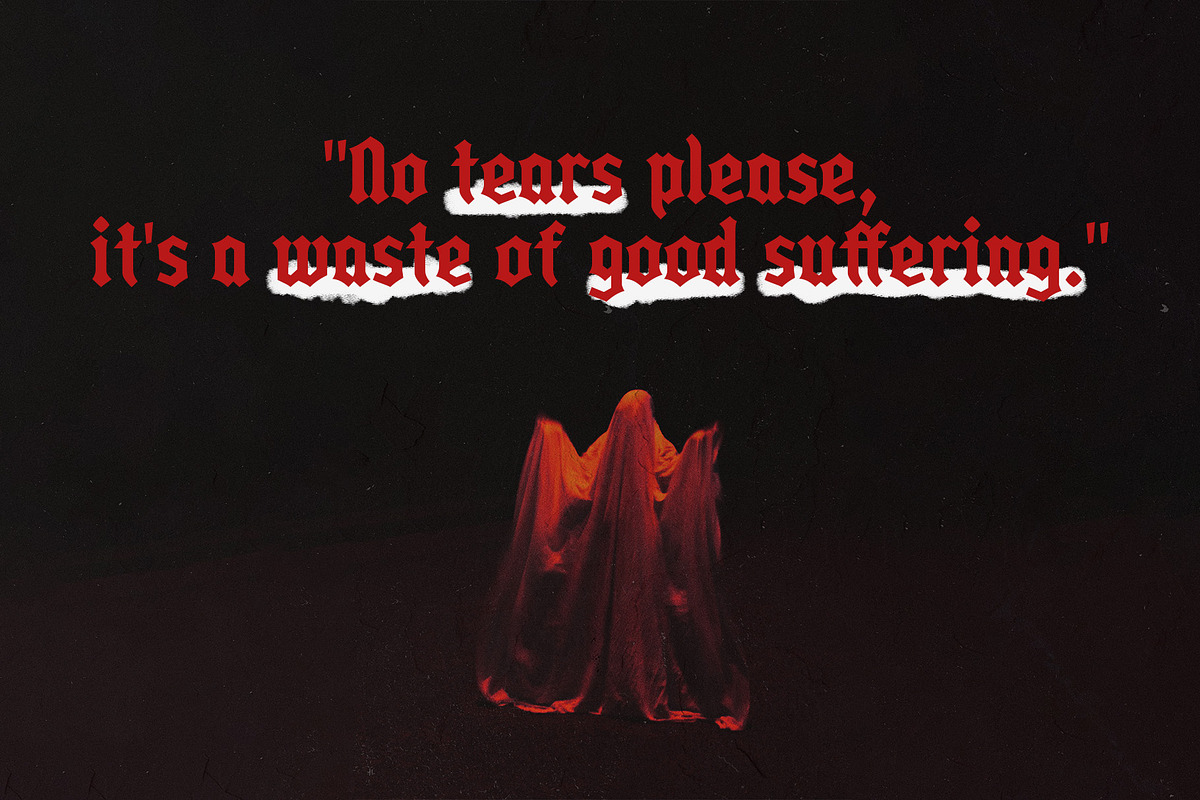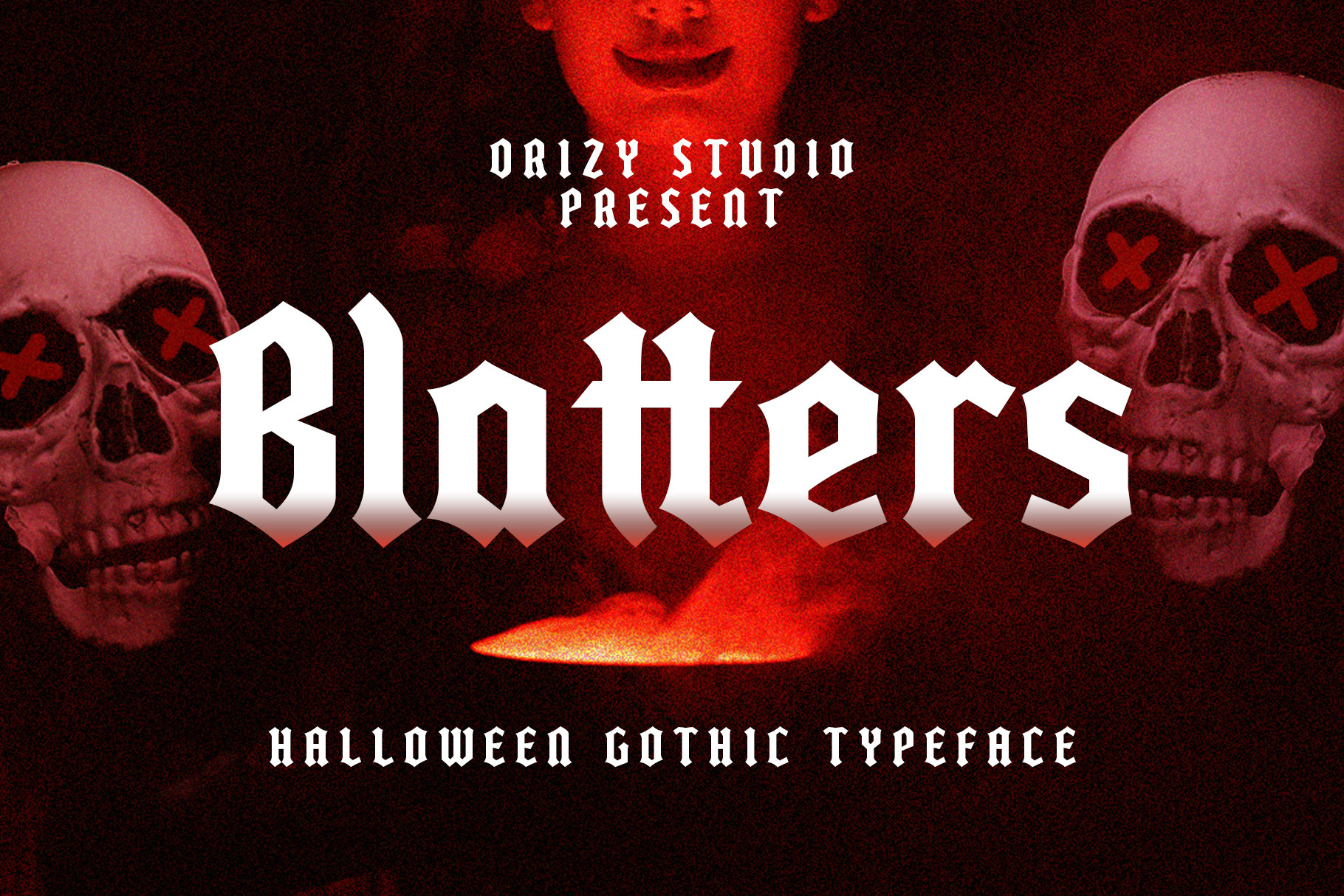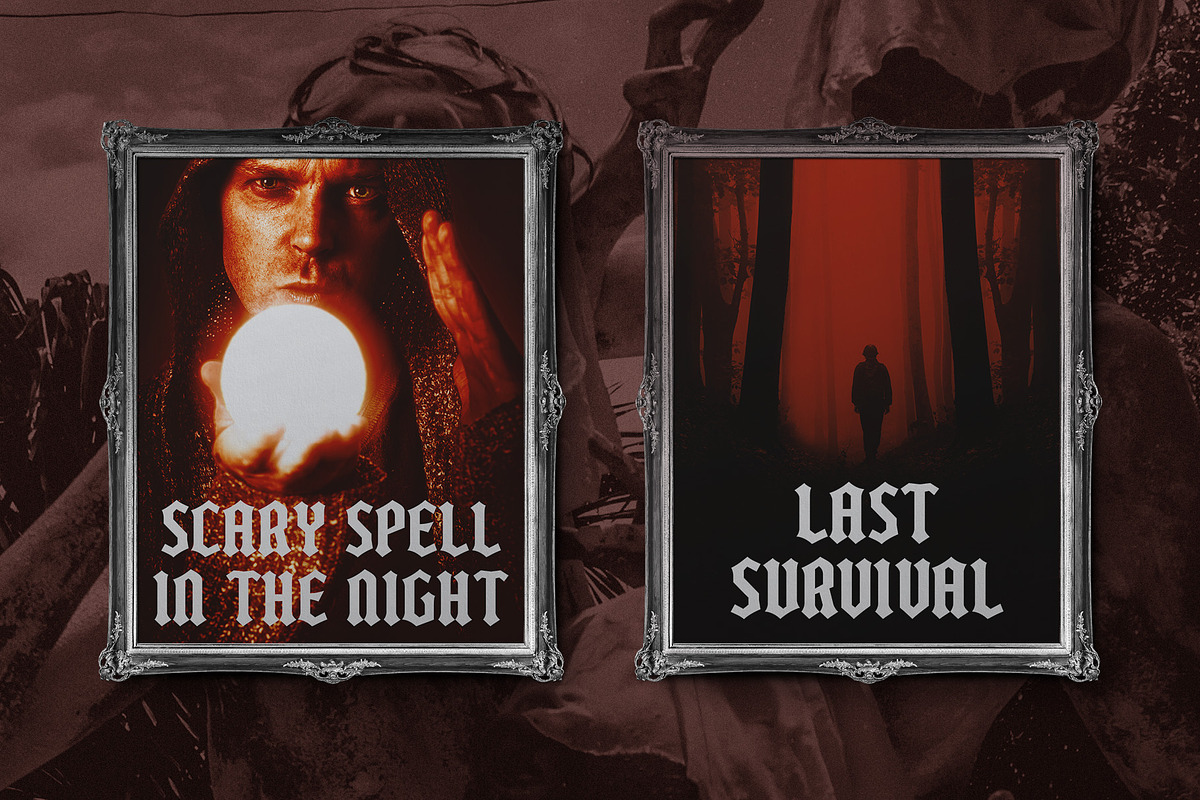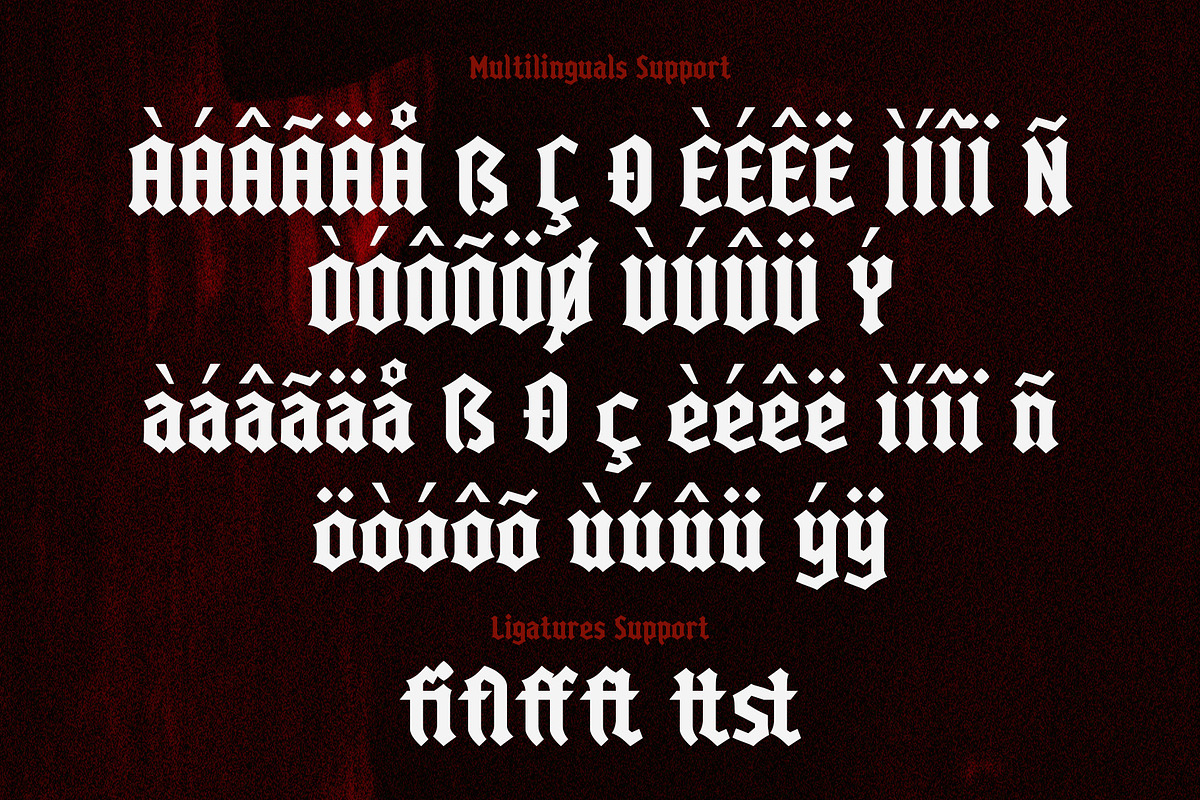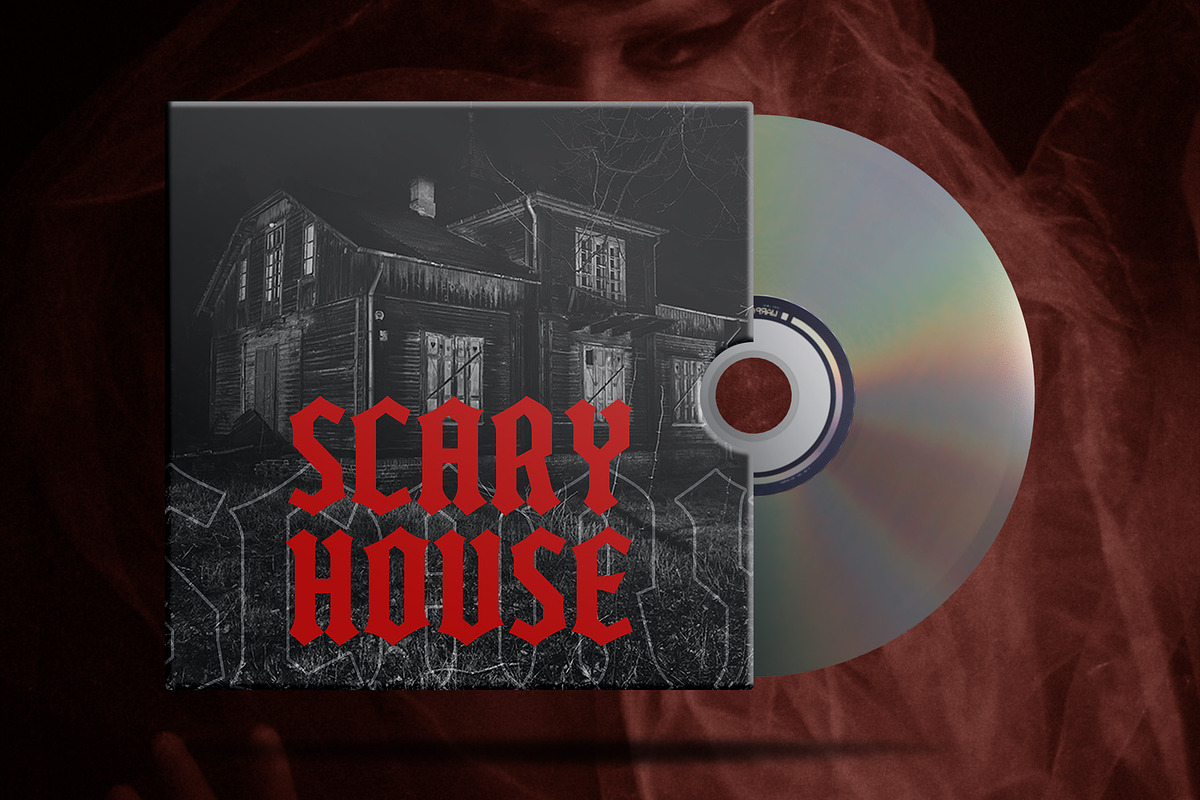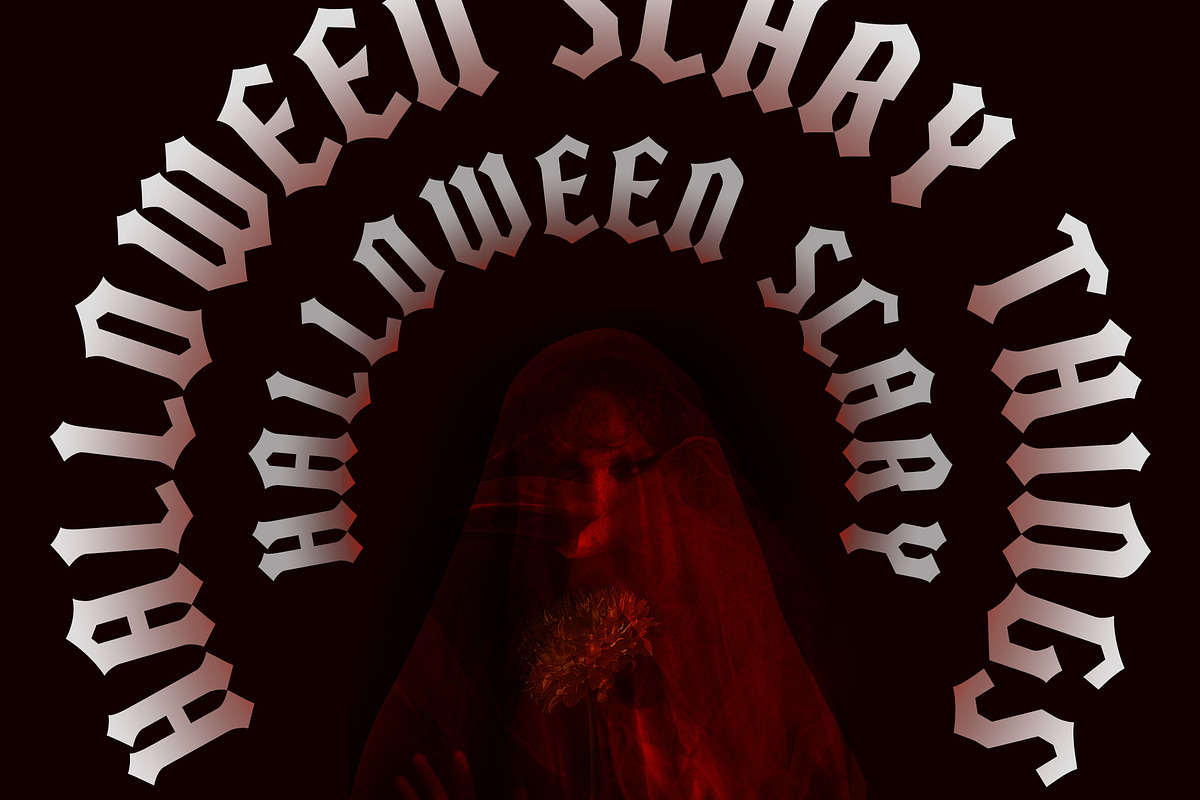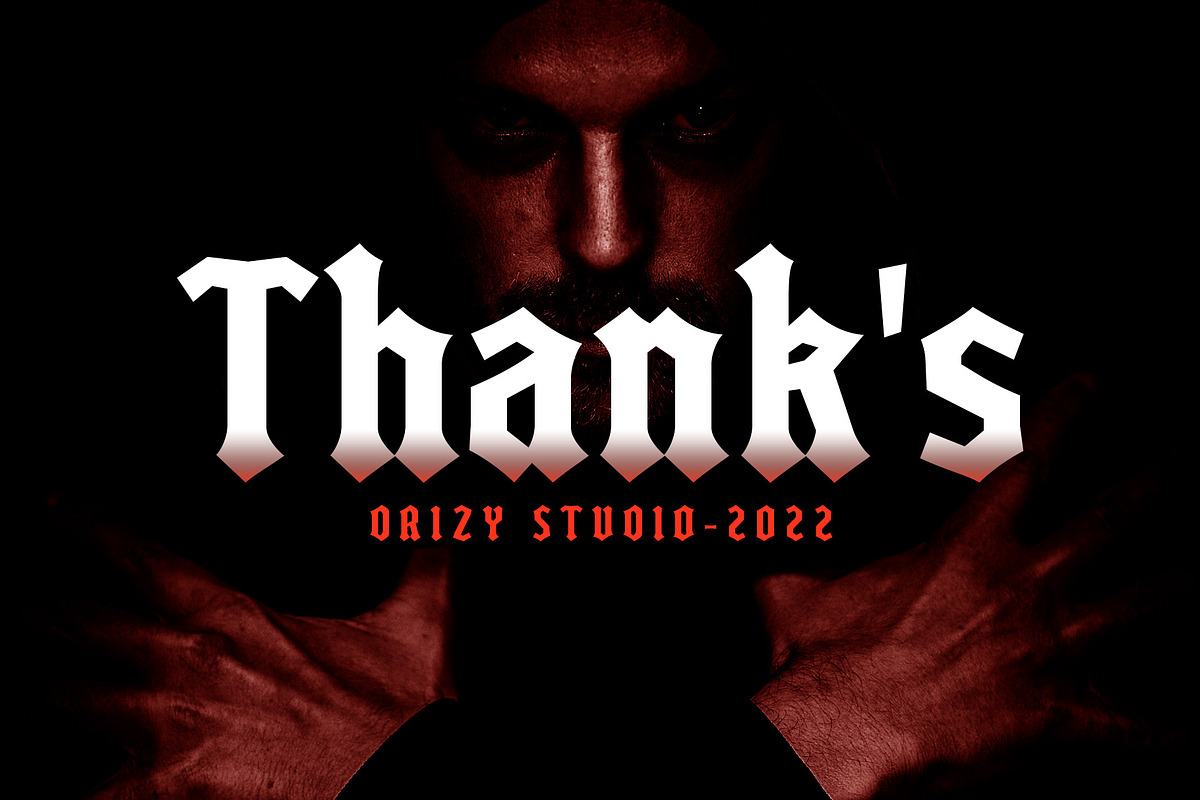
Blatters – Halloween Gothic Font
Blatters is a halloween gothic display font from Drizy studio. Offering all the basic styles you will need for a spooky and scary theme, like Halloween project.
Blatters Features:
Uppercase & Lowercase Numeral & Punctuation Multilinguals & Ligatures